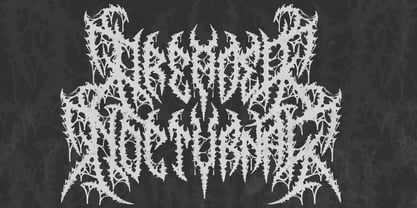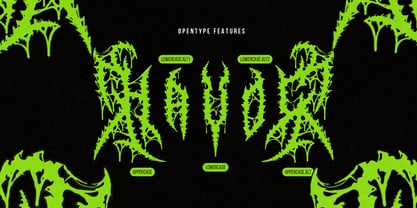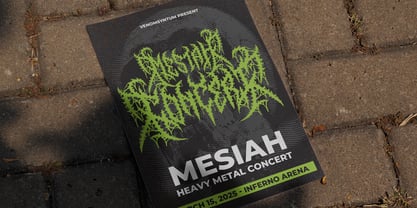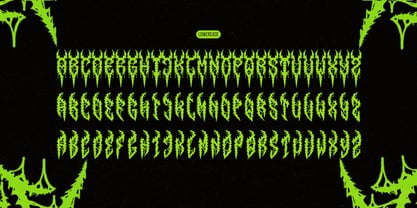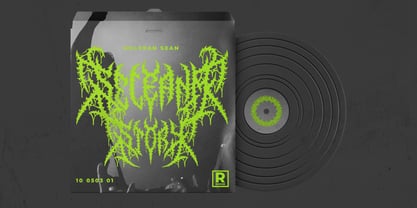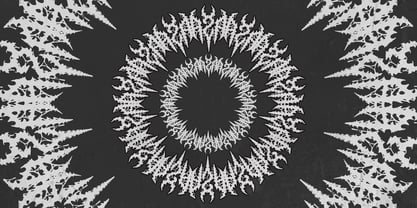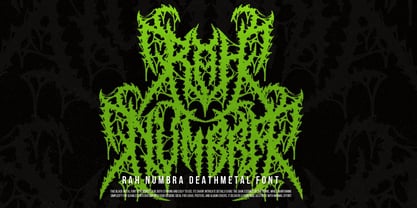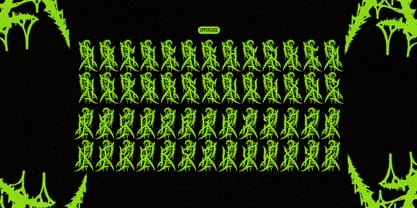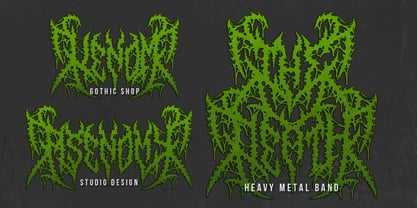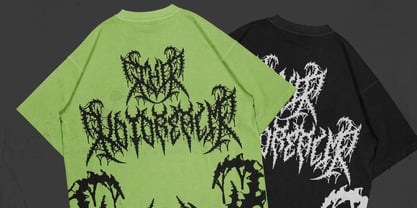
Rah Numbra
by Denustudio
The Rah Numbra Font Family was designed by Dede Nugraha and published by Denustudio. Rah Numbra contains 1 styles.
Rah Numbra | Death Metal Font, from Denustudios, suitable for any projects such as: logos, branding projects, homeware designs, product packaging, mugs, quotes, posters, shopping bags, t-shirts, book covers, name card, invitation cards, greeting cards, label, photography, watermark, special events, and all your other lovely projects that need a Death Metal Fonttaste.